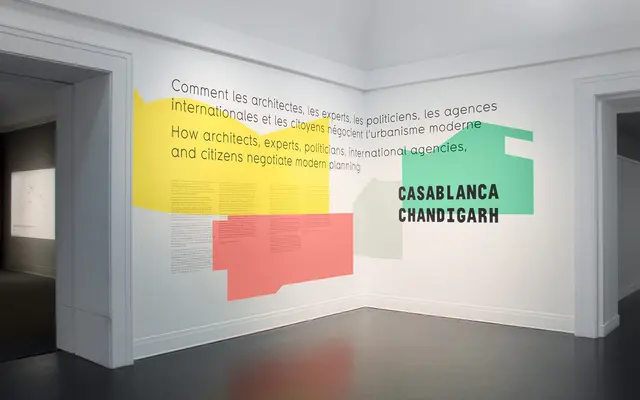
Uno
A stencil display typeface drawn from architectural blueprint lettering, created for a CCA exhibition on modernist urbanism in Casablanca and Chandigarh.
Developed for the Canadian Centre for Architecture's exhibition on postcolonial urban planning experiments in Casablanca and Chandigarh, the typeface takes its forms directly from the stencils used on architectural blueprints of that era. The result is a typeface with a distinctly technical, mid-century character that ties its visual language to the subject matter it was made to serve. Its application is best suited to display and exhibition contexts where that utilitarian origin can carry meaning.
Uno's letterforms are directly derived from stencils used on architectural blueprints, giving it a utilitarian, display character suited to exhibition and editorial contexts rather than continuous text.